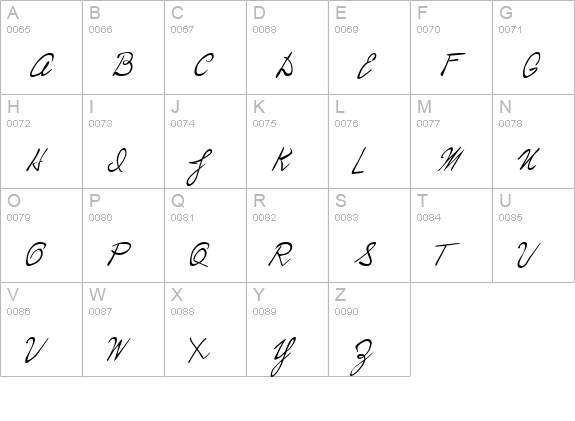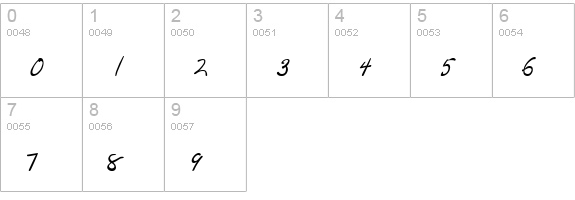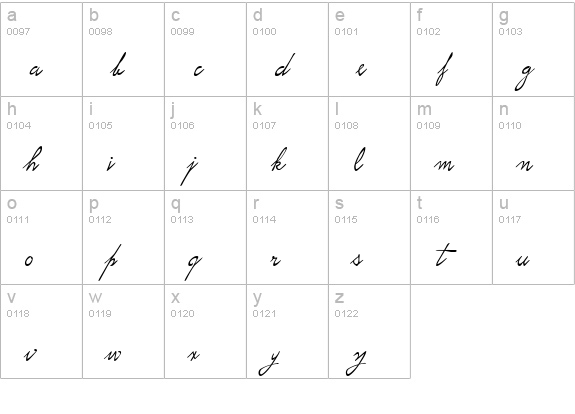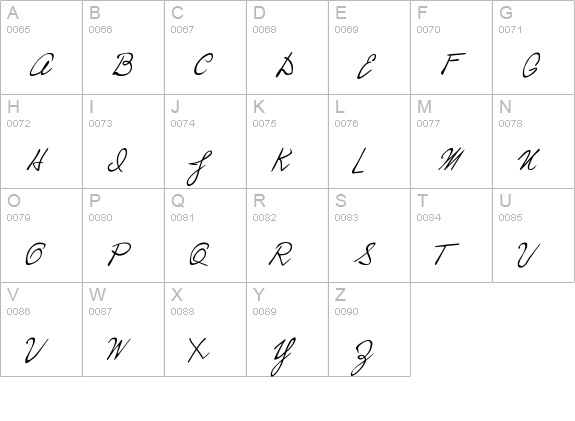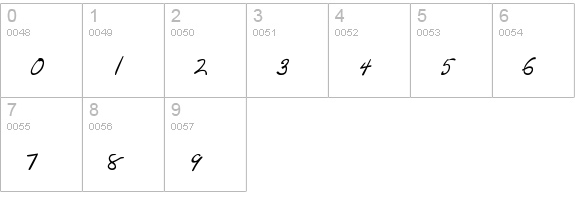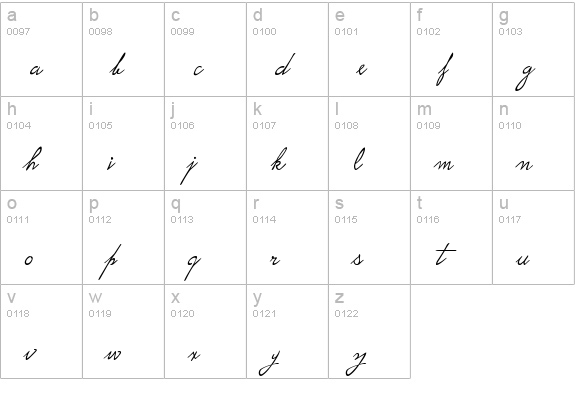
P22 Hopper Edward font is a captivating and versatile typeface that pays homage to the renowned American painter, Edward Hopper. This font captures the essence of Hopper's distinctive artistic style, evoking a sense of nostalgia and introspection. With its delicate yet bold strokes, P22 Hopper Edward font effortlessly blends elegance with a touch of modernity. Its clean lines and refined curves create a harmonious balance, making it an ideal choice for a wide range of design projects. Whether used for titles, headlines, or body text, P22 Hopper Edward font adds a unique and sophisticated touch to any project. Its timeless appeal makes it suitable for both print and digital media, ensuring that your message will be conveyed with a touch of artistic finesse. One of the remarkable aspects of P22 Hopper Edward font is that it is available for free download at FontsMarket.com. This means that designers, artists, and enthusiasts can freely access and utilize this exceptional typeface to enhance their creative endeavors. By offering P22 Hopper Edward font as a free resource, FontsMarket.com enables everyone to express their creativity without any barriers. This font allows designers to experiment, explore, and push the boundaries of their imagination, all while maintaining a high level of professionalism and aesthetic appeal. So, whether you are working on a personal project, a commercial venture, or simply seeking to add a touch of artistic flair to your designs, P22 Hopper Edward font is the perfect choice. Download it freely at FontsMarket.com and unleash your creativity with this captivating and versatile typeface.